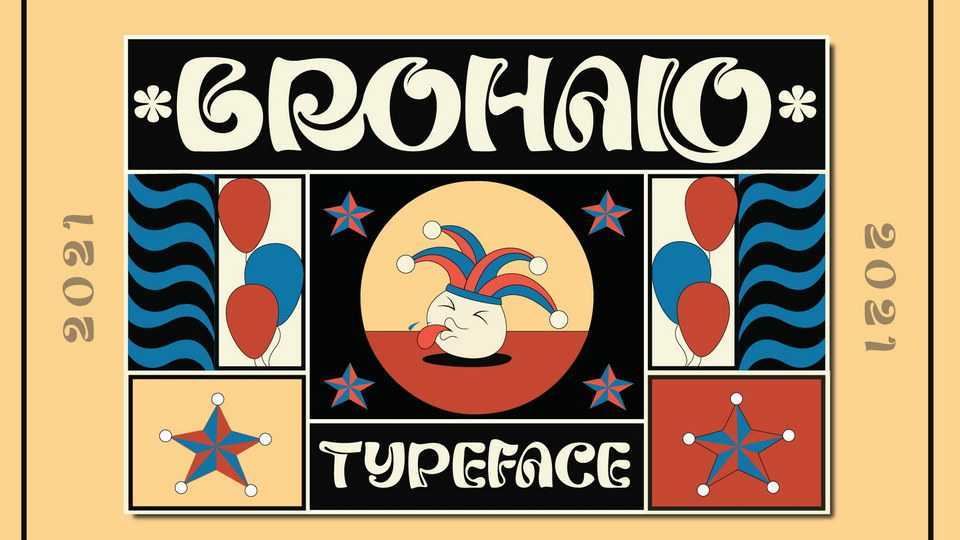
Download Brohalo font, a display typeface inspired by the design styles of the 70s. Brohalo’s style is funny, groovy, classic, not serious but has aesthetic and unique value.